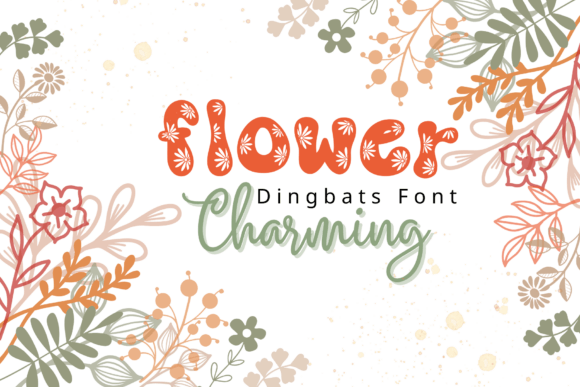
Unlock the Magic of Whimsy: Discover the Flower Charming Font
Do you ever find yourself in the midst of a creative project, and suddenly, a burst of inspiration strikes? You envision a design that’s nothing short of enchanting, with delicate illustrations and a dash of playfulness. That’s exactly what happens when you unleash the power of the Flower Charming Font.
This charming dingbat font is more than just a typographic tool – it’s a gateway to creating eye-catching designs that will leave a lasting impression. With its intricate flower illustrations, it’s perfect for children’s books, greeting cards, and any project that requires a touch of whimsy. For designers, the Flower Charming Font offers a valuable asset: the ability to add a layer of personality to even the most mundane designs.
Key Features of Flower Charming Font
- Font Family: Flower Charming Font comes in 6 different font styles: Regular, Italic, Bold, Bold Italic, Outline, and Fill.
- Character Count: The font includes over 800 glyphs, including Latin, Cyrillic, and Greek alphabets, as well as various symbols and punctuation marks.
- Unique Characteristics: The font features a charming, hand-drawn design with intricate details and subtle flourishes, making it perfect for creating eye-catching and whimsical designs.
Flower Charming Font Review
Overall, I found the Flower Charming Font to be a delightful addition to any design project. The ✨ whimsical feel and ✨ playful characters make it perfect for creating a sense of wonder and magic in your designs.
Here are some of the things that I think work well:
- ✨ Unique character set: The font has a wide range of characters, including swashes and flourishes, that add to its whimsical feel.
- ✨ Good legibility: Despite its playful nature, the font is still easy to read, making it suitable for a wide range of applications.
However, there are a few limitations that I think are worth noting:
- ⚠️ Limited language support: The font is primarily designed for English and may not support other languages as well.
- ⚠️ Not suitable for small text: Due to its playful nature, the font can be difficult to read in small sizes.
Overall, I think the Flower Charming Font is a great choice for designers looking to add a touch of whimsy to their projects. While it may have some limitations, its unique character set and good legibility make it a worthwhile addition to any design toolkit.
To get the most out of the Flower Charming Font, experiment with different combinations of colors, sizes, and styles. Use it to create whimsical and playful designs, or to add a touch of elegance to your typography. Remember to pair the font with a clear and concise message to avoid overwhelming your audience.
The Flower Charming Font is perfect for:
- Children’s books and educational materials
- Floral-themed designs and branding
- Stationery and greeting cards
Alternatives to Flower Charming Font
Great Vibes is a beautiful, elegant script font that is perfect for creating a whimsical and romantic atmosphere. It is ideal for use in wedding invitations, greeting cards, and other designs where a touch of elegance is required. Compared to Flower Charming Font, Great Vibes has a more refined and sophisticated look, making it a better choice for high-end designs.